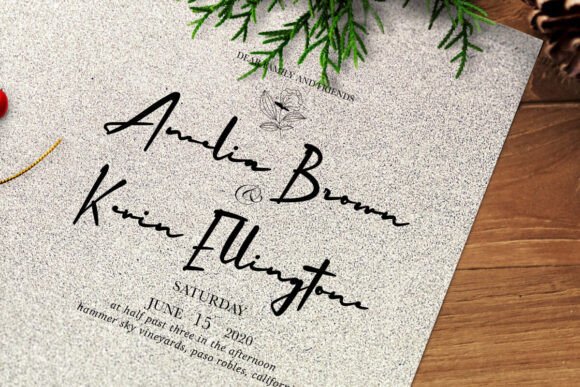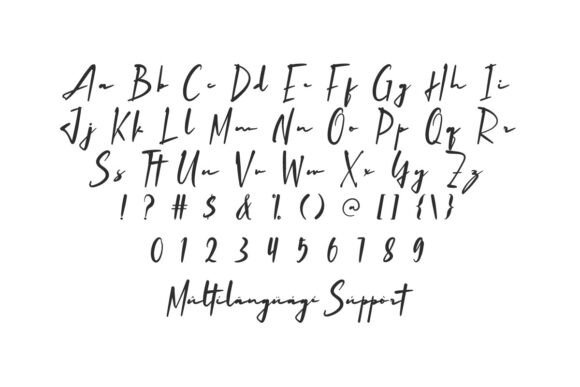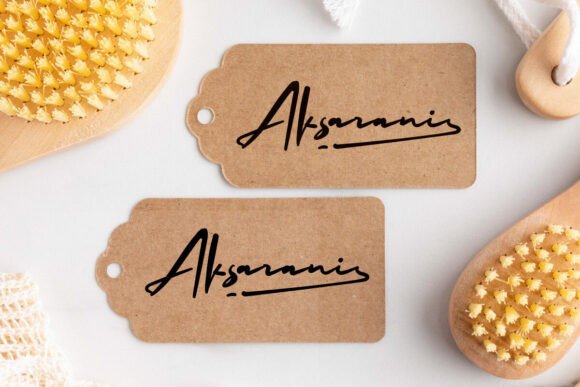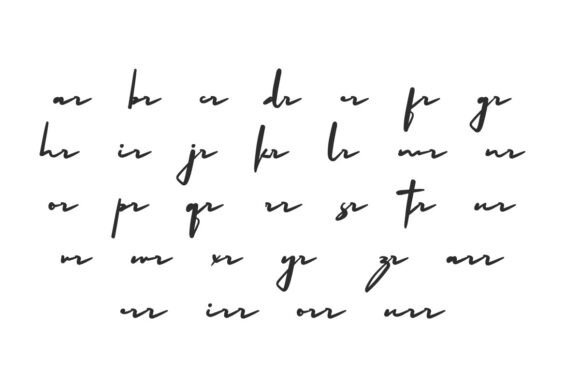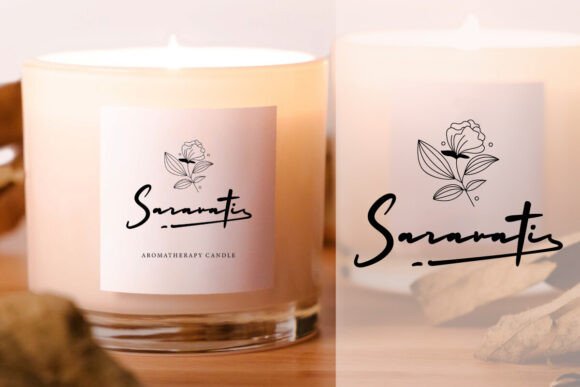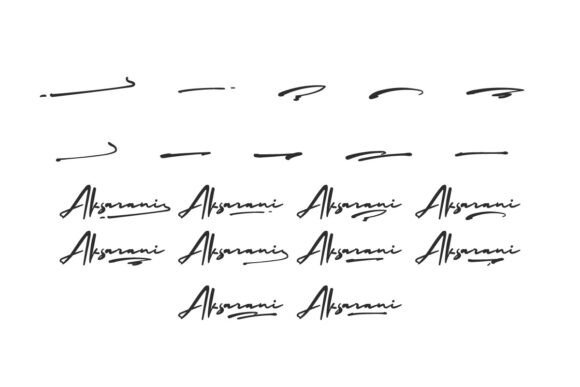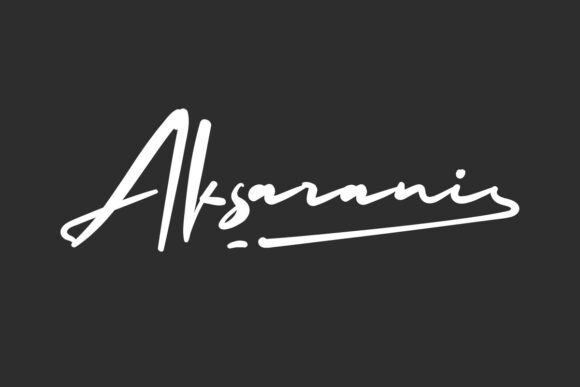
Aksarani Font: Elevate Your Designs with a Touch of Classic Elegance
In the world of typography, fonts play a crucial role in conveying the tone and personality of a brand or design. For designers and crafters looking for a bold, beautiful, and signature handwriting font with a classic style, Aksarani Font is an excellent choice. This stunning font boasts semi-bold lines and a spontaneous assertiveness that is sure to make your designs stand out.
What is Aksarani Font?
Aksarani Font is a carefully crafted font that exudes a sense of sophistication and elegance. Its classic style makes it an ideal choice for a wide range of industries, including advertisement, beauty products, interior design, event or wedding organizing, fashion, handcraft, homeware, photography, spa and salon, and more. Whether you’re looking to create a luxurious brand identity or add a touch of personality to your designs, Aksarani Font is the perfect tool.
Key Features of Aksarani Font
- Semi-bold lines: Aksarani Font features semi-bold lines that give it a distinctive and assertive look.
- Spontaneous assertiveness: The font’s spontaneous assertiveness adds a touch of personality and elegance to your designs.
- Classic style: Aksarani Font’s classic style makes it suitable for a wide range of industries and design applications.
- Bold and beautiful: This font is not only bold but also beautiful, making it perfect for designs that require a touch of sophistication.
Industries That Can Benefit from Aksarani Font
Aksarani Font is versatile and can be used in various industries, including:
- Advertisement: Create eye-catching ads with Aksarani Font that grab the attention of your target audience.
- Beauty products: Add a touch of elegance to your beauty product branding with Aksarani Font.
- Interior design: Use Aksarani Font to create stunning interior design materials, such as brochures and catalogs.
- Event or wedding organizing: Make your event or wedding branding stand out with Aksarani Font’s classic and sophisticated look.
- Fashion: Aksarani Font is perfect for fashion brands looking for a bold and beautiful font to convey their brand identity.
- Handcraft: Add a personal touch to your handcraft designs with Aksarani Font’s unique and elegant style.
- Homeware: Use Aksarani Font to create stunning homeware designs, such as catalogs and packaging.
- Photography: Aksarani Font is an excellent choice for photographers looking to add a touch of sophistication to their branding and marketing materials.
- Spa and salon: Create a luxurious brand identity for your spa or salon with Aksarani Font.
Why Choose Aksarani Font?
With Aksarani Font, you can:
- Elevate your designs: Aksarani Font’s classic style and semi-bold lines can instantly elevate your designs and make them more sophisticated.
- Stand out from the crowd: This font’s unique and assertive style ensures that your designs stand out from the crowd.
- Convey your brand’s personality: Aksarani Font’s elegant and sophisticated look makes it perfect for brands looking to convey a sense of luxury and refinement.
Aksarani Font is a stunning and versatile font that can elevate your designs and make them more sophisticated. Its classic style, semi-bold lines, and spontaneous assertiveness make it perfect for a wide range of industries and design applications. Whether you’re a designer or crafter looking for a bold and beautiful font, Aksarani Font is an excellent choice.